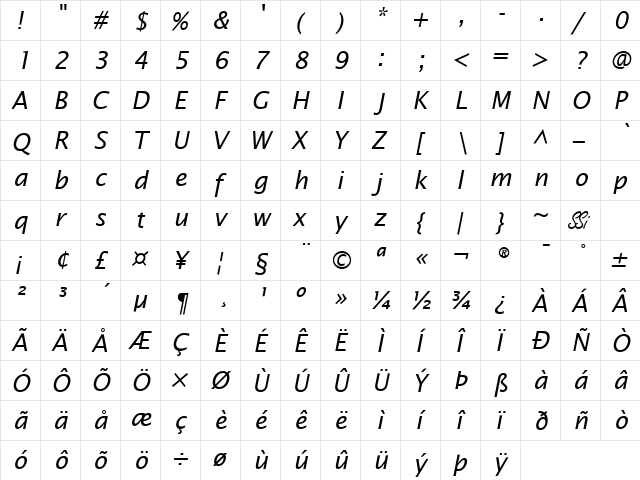
Insight Sans SSi Italic
Insight Sans SSi takes a measured approach to typography — its balanced proportions and neutral character make it a reliable workhorse for both digital and print work. The slanted form adds forward momentum and visual energy.